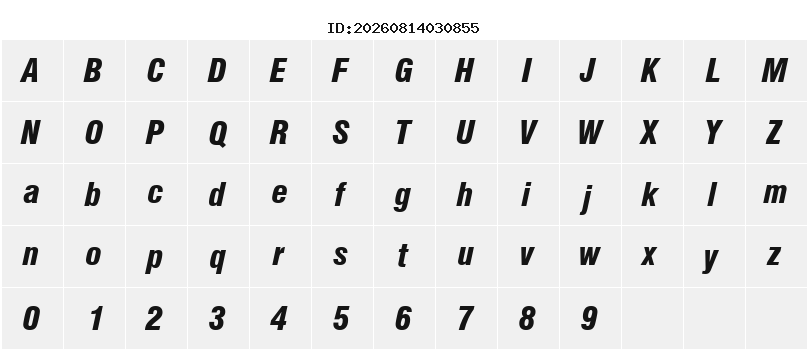
• Font Name: Swis721 BlkCn BT
• Font Style: Black Italic
• Font ID: Swiss 721 Black Condensed Italic
• Full Font Name: Swis721 BlkCn BT Black Italic
About Swis721 BlkCn BT.ttf
Swis721 BlkCn BT.ttf is a modern, elegant sans-serif font designed for ultimate readability and visual harmony. Perfect for branding, headlines, web design, and print materials.